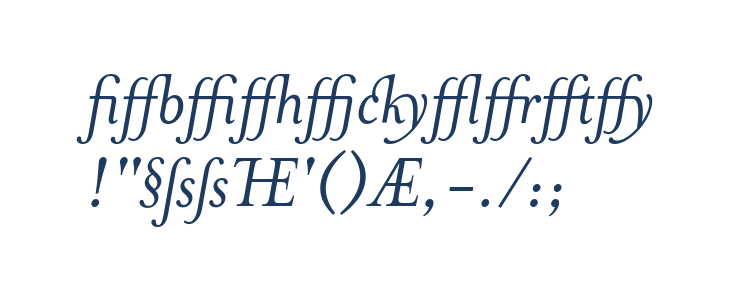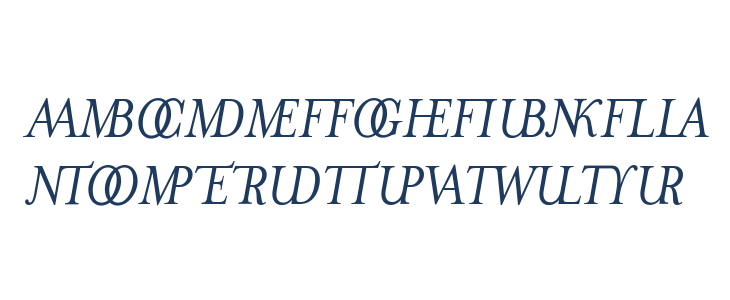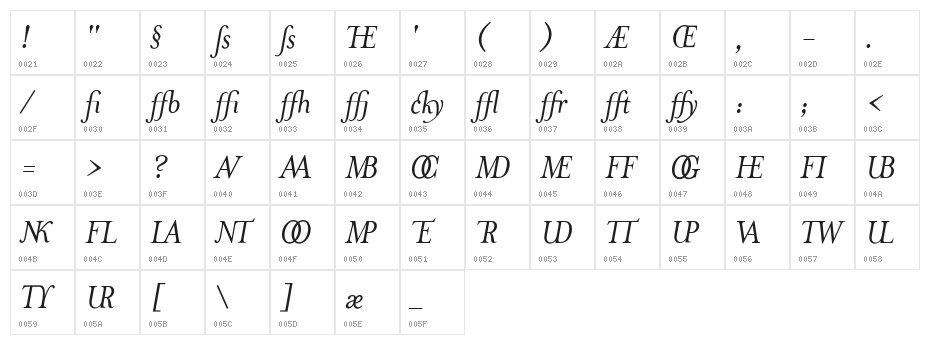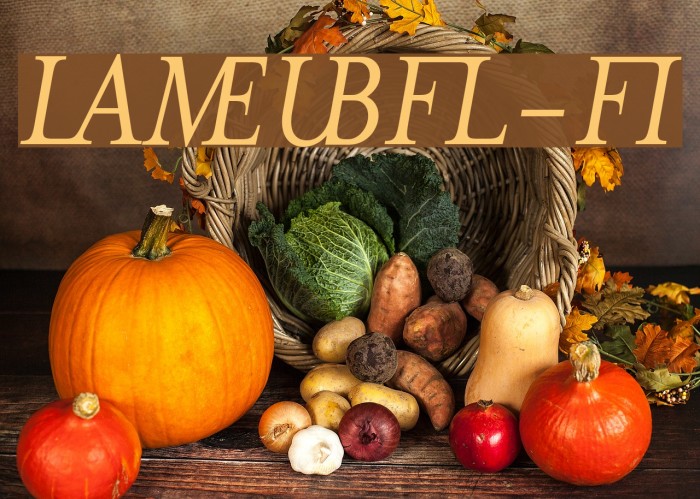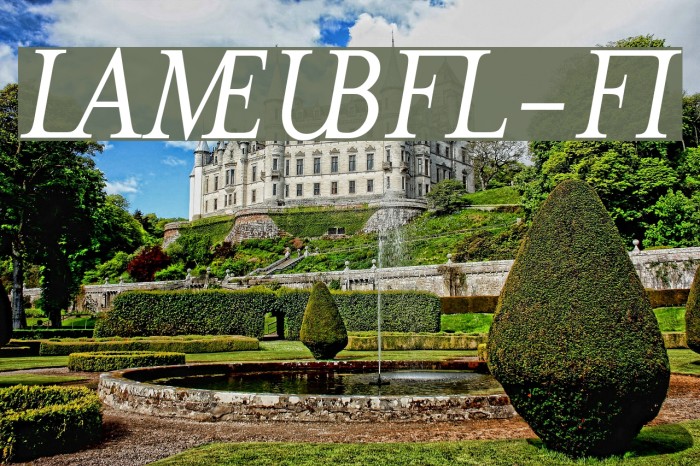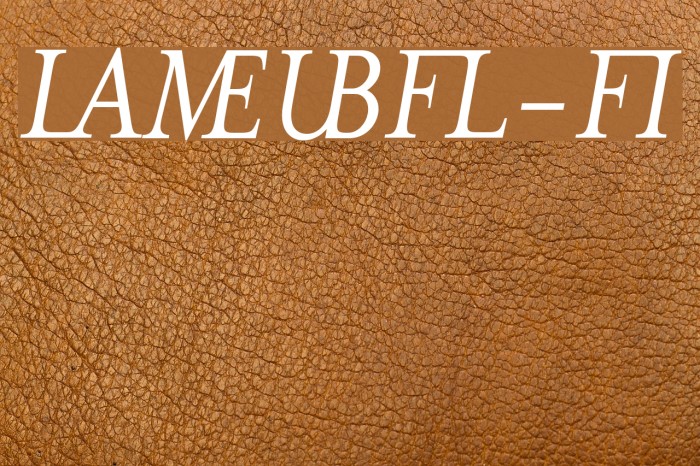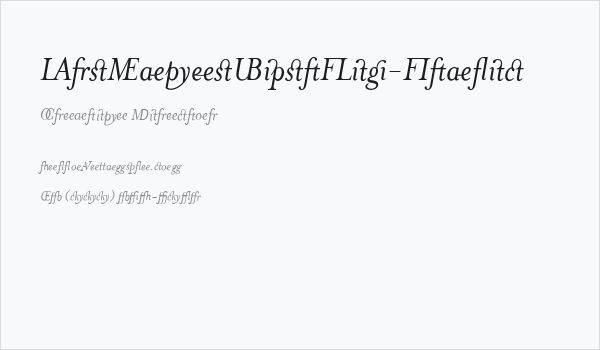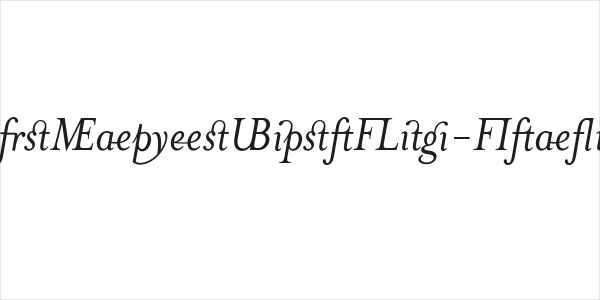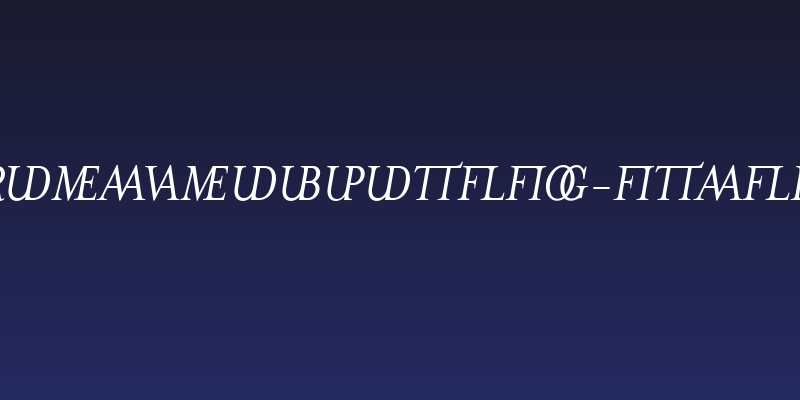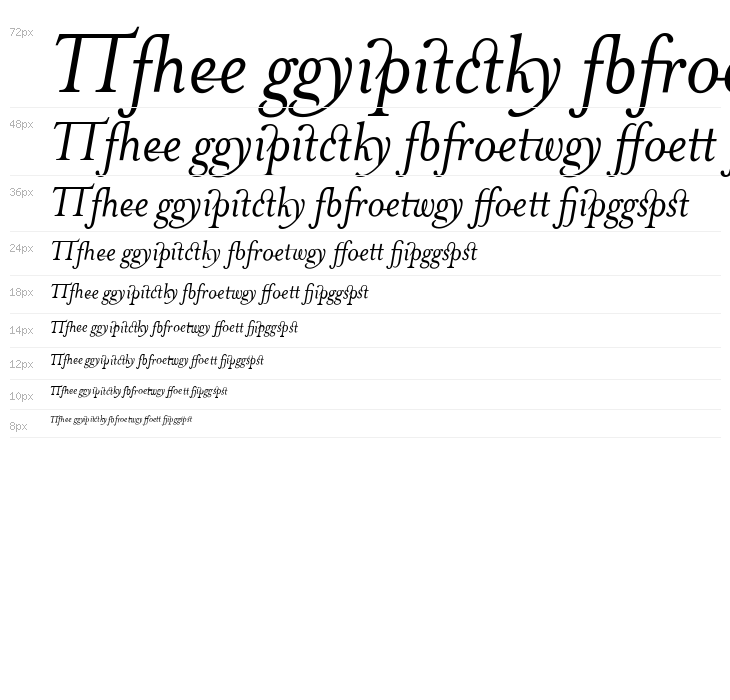
MrsEavesJustLig-Italic Font
MrsEavesJustLig-Italic Description
This elegant and sophisticated font features a classic italic style with a high degree of legibility. The characters are gracefully slanted, with smooth curves and a refined appearance. Ligatures are prominently used, adding a touch of traditional calligraphy to the overall design. The font maintains a consistent stroke width, providing a balanced and harmonious look. It is well-suited for formal and professional settings, offering a timeless aesthetic that enhances readability while conveying a sense of elegance.